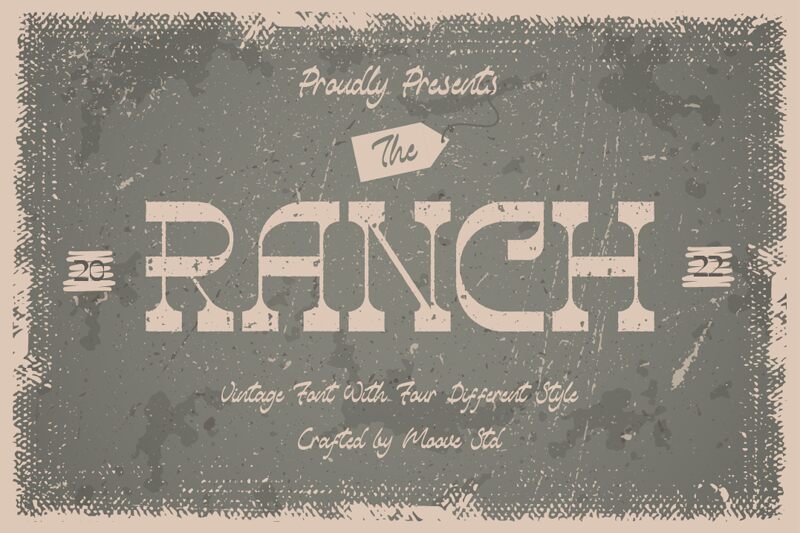
The Ranch Roughen
The Ranch Roughen, a captivating creation by Moove Studio, stands out with its striking eroded style. This display font combines rugged charm with bold character, making it perfect for designs that demand attention and convey a sense of adventure. Its distressed texture adds a layer of authenticity and vintage appeal, ideal for projects that seek to evoke nostalgia or a rustic atmosphere.
Whether used in branding, posters, or packaging, The Ranch Roughen brings a unique flair that's both eye-catching and memorable. Its distinctive aesthetic makes it versatile for various creative contexts where boldness and personality are key. Embrace the rugged elegance of The Ranch Roughen to elevate your design projects with its unmistakable presence.